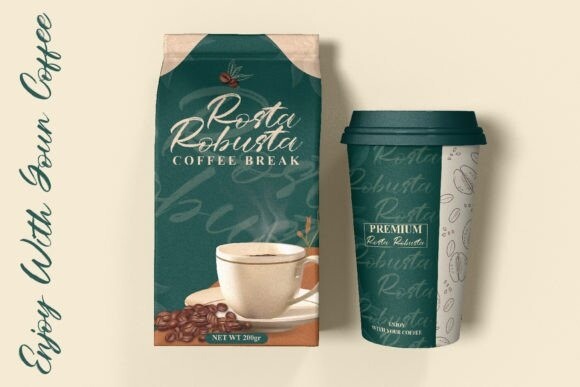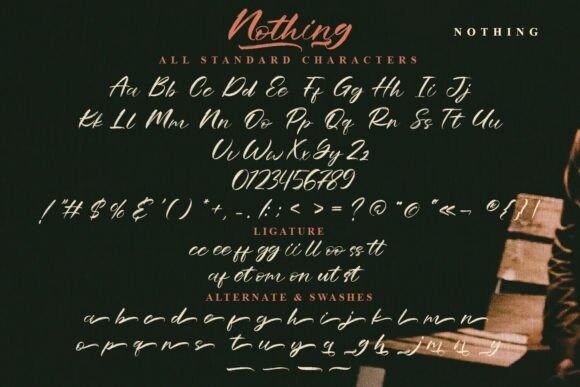
Nothing Font
Nothing Font is a casually and quickly written brush script. This font is great for your next creative project such as logotypes, printed quotes, invitations, cards, product packaging, headers, letterheads, posters, apparel design, labels and so much more.